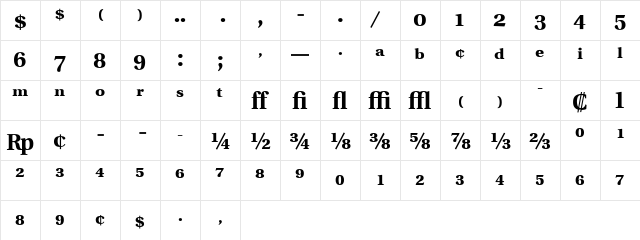
UtopiaExp Bold Regular
Design Context for UtopiaExp Bold Typeface
UtopiaExp Bold takes a measured approach to typography — its balanced proportions and neutral character make it a reliable workhorse for both digital and print work. The heavy weight commands attention and anchors typographic hierarchies.